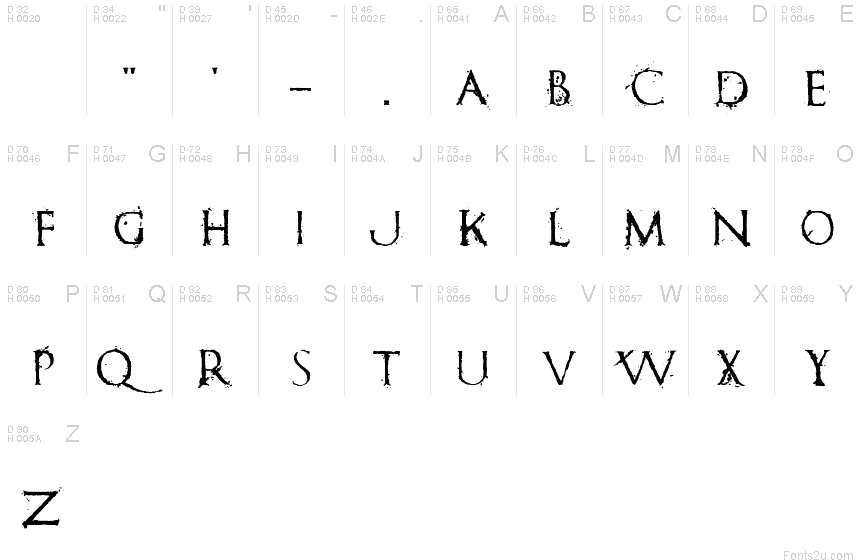
Romanum Est from Imagex is a free distressed old-school display font with classical Roman proportions and a heavily weathered surface. Its tall capitals combine sharp wedge serifs, broad curved strokes, and scattered ink-like breaks that make the lettering resemble an aged print or damaged inscription.
In publishing, it gives historical fiction covers the texture of a worn archival title without losing their formal scale. The same battered elegance suits museum exhibition posters and heritage packaging shaped around antiquity, ruins, or old-world craft. It can also shape theatrical programs and game graphics centered on empires, archaeology, or myth.